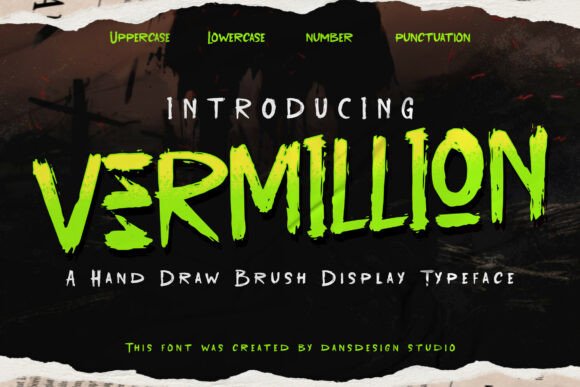
Vermillion: A Bold Hand-Drawn Typeface for Edgy Design Projects
Typography plays a pivotal role in visual storytelling, especially when the subject is intense or unconventional. For designers working in genres that demand raw energy and rebellious flair, Vermillion emerges as a compelling choice. This hand-drawn brush typeface blends the chaotic spirit of punk culture with the dark, visceral tones of horror aesthetics, making it ideal for projects that aim to stand out through attitude and intensity.
What Makes Vermillion Unique?
Vermillion is not your average font. Its character set exudes a gritty, organic feel that’s difficult to replicate digitally without a human touch. The typeface mimics the natural inconsistencies of a brush pen—uneven strokes, visible pressure changes, and subtle texture variations—all of which contribute to an authentic, unpolished look. These features make Vermillion particularly well-suited for designs where authenticity and edge are key, such as music album art, movie posters, or gaming titles.
One standout aspect of Vermillion is its versatility within niche creative spaces. While it may seem like a bold, aggressive font at first glance, it offers enough stylistic variation to be adapted across different applications. From the jagged edges of a horror film title to the rebellious tagline of a punk band’s merch line, Vermillion can be tailored to fit a wide range of underground and extreme design needs.
Design Characteristics and Practical Application
The core characteristics of Vermillion include high contrast between thick and thin strokes, dynamic letterforms, and a sense of motion. Each glyph has been carefully crafted to maintain legibility while preserving the wild, expressive nature typical of hand-drawn fonts. This balance ensures that it remains readable even when used in large formats or from a distance, such as on billboards or digital thumbnails.
- High Contrast: The sharp differences in stroke weight add drama and visual interest.
- Brush Texture: Mimics real-world tools, giving text a tactile, almost “raw” appearance.
- Dynamic Slant: Offers a forward-leaning aesthetic that conveys urgency and movement.
- Customizable Ligatures: Some versions provide alternate characters for added stylistic control.
In practice, Vermillion works best when used sparingly. It’s a display font, meaning it excels in headlines, logos, and short impactful phrases rather than long paragraphs. For example, if you're creating a poster for a horror-themed event, using Vermillion for the title could immediately draw attention and set the right tone. Similarly, for an independent metal band looking to create a unique identity, this font can help craft a logo that feels both authentic and powerful.
Strengths in Real-World Use
Vermillion shines in environments where traditional typography would fall flat. Consider the following scenarios:
- Music and Entertainment Industry: Punk and metal bands often seek fonts that reflect their ethos. Vermillion provides a strong typographic voice that aligns with their aesthetic.
- Video Games and Horror Media: Game developers working on zombie or apocalyptic themes can use Vermillion for titles, subtitles, or UI elements to enhance immersion.
- Digital Branding: Creators on platforms like YouTube or Twitch who focus on edgy content (e.g., horror streaming, skateboarding, or street art) can leverage this font for thumbnails, banners, or channel logos.
- Urban Art and Streetwear: The graffiti-inspired style makes it a fitting option for urban fashion labels or pop-up events looking to evoke a sense of rebellion.
Its ability to adapt across mediums—from print to digital—also enhances its practicality. Whether applied to a vinyl record sleeve or a high-resolution banner for social media, Vermillion retains its impact and clarity.
Who Can Benefit Most from Vermillion?
This font is best suited for professionals and creatives who work within subcultures or industries that value strong visual statements. That includes:
- Graphic designers specializing in alternative or underground aesthetics.
- Independent filmmakers crafting horror or thriller promotional materials.
- Marketing teams for extreme sports brands or urban lifestyle products.
- Content creators producing videos in niches like punk rock, street art, or post-apocalyptic themes.
- Small business owners launching a brand around rebellion, freedom, or fear.
Freelancers and small studios may find Vermillion especially valuable due to its affordability and broad applicability. It allows them to deliver professional-grade visuals without the need for custom illustrations or complex vector work. This can streamline production time and reduce costs while still delivering a high-impact result.
Evaluating Quality and Usability
From a technical standpoint, Vermillion is well-crafted. The brush strokes are consistent in style, yet varied enough to avoid a repetitive look. The font supports multiple languages and special characters, which is essential for international branding or multilingual projects. Additionally, many providers offer the font in various weights and styles, allowing for more nuanced application depending on the project's needs.
If your project demands energy, attitude, and a hint of danger, then Vermillion is worth considering. It offers a unique blend of creativity and professionalism that bridges the gap between artistic expression and commercial viability. Just remember to use it wisely, and always ensure it fits the broader design strategy.